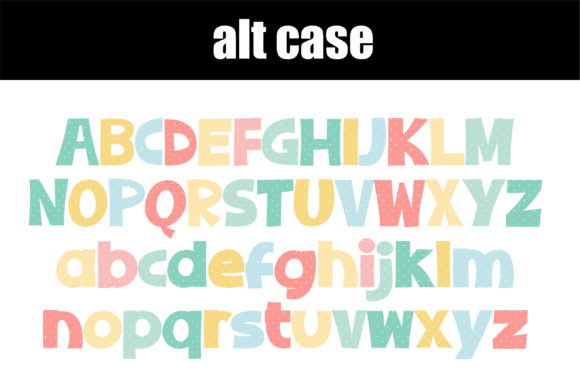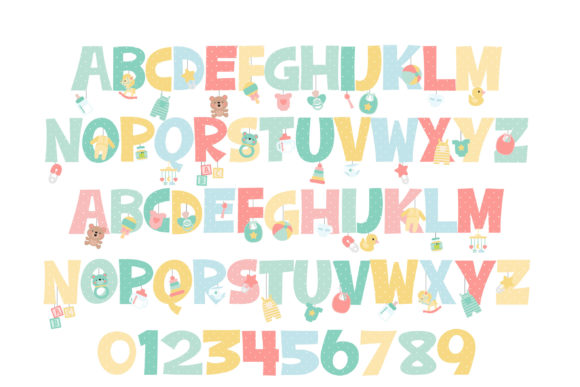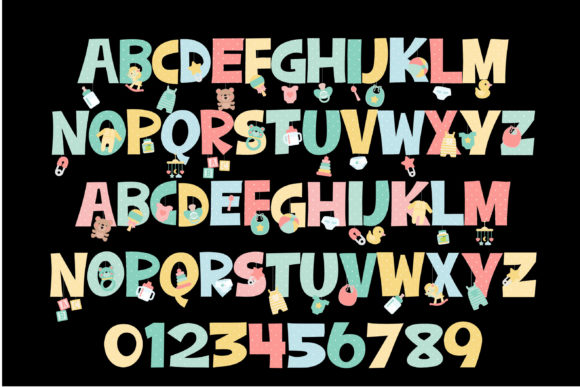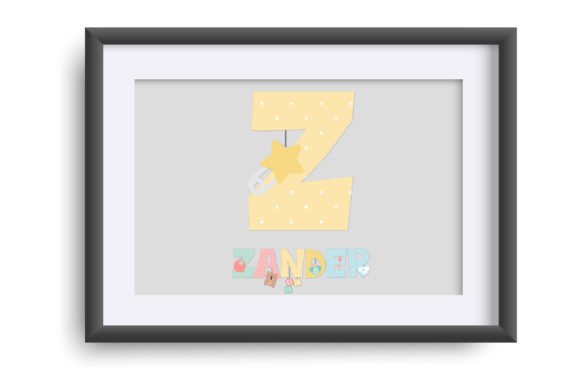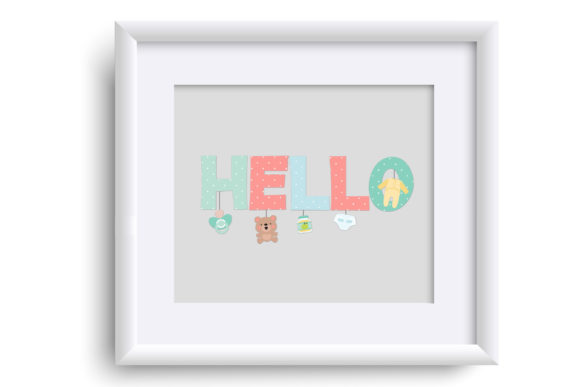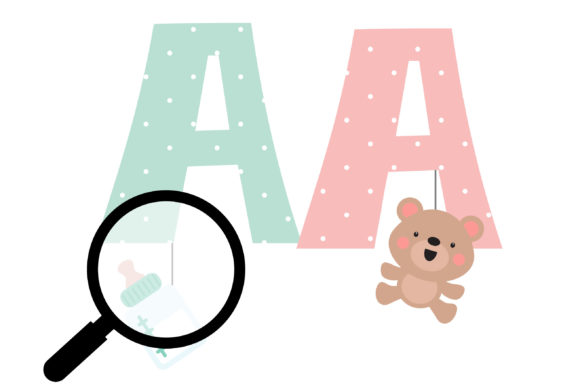
Baby Squeaks Font: A Delightful Addition to Your Design Arsenal
Are you a designer or crafter looking for a unique and playful font to add to your collection? Look no further than the Baby Squeaks Font! This charming full-color font features a pastel color palette and adorable baby toys and supplies, making it perfect for a variety of creative projects.
What Makes Baby Squeaks Font So Special?
The Baby Squeaks Font is a one-of-a-kind font that combines a sweet and playful aesthetic with advanced technical capabilities. Here are just a few features that make it stand out:
- Pastel Color Palette: The font features a soft and soothing pastel color scheme that is sure to delight.
- Baby Toys and Supplies: The font includes a range of adorable baby toys and supplies, adding a touch of whimsy to your designs.
- Full-Color SVG: The font is designed as an OpenType full-color (SVG) font, allowing for vibrant and detailed graphics.
- Alt Case: A second upper and lower alt case is included, accessible through your system’s character map.
What to Expect When Using Baby Squeaks Font
The Baby Squeaks Font is a versatile and fun font that is perfect for a range of creative projects, including:
- Digital Crafts: Use the font to create adorable digital crafts, such as printable art, party decorations, and gift tags.
- Branding and Packaging: Add a touch of whimsy to your branding and packaging with this unique and playful font.
- Stationery and Invitations: Use the font to create beautiful and eye-catching stationery and invitations.